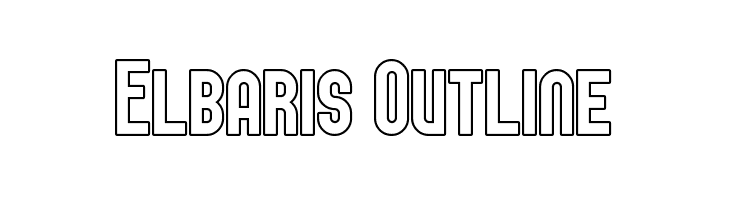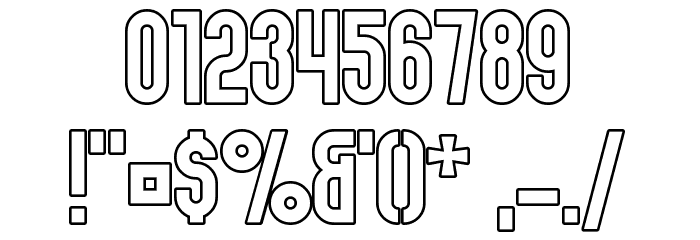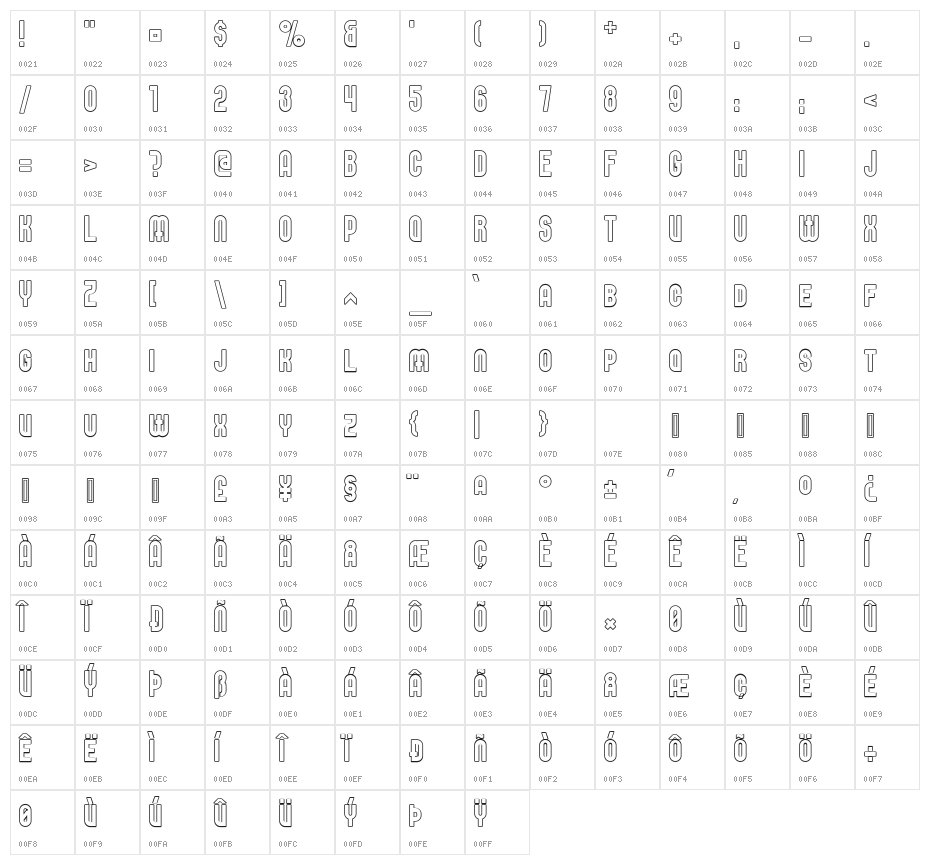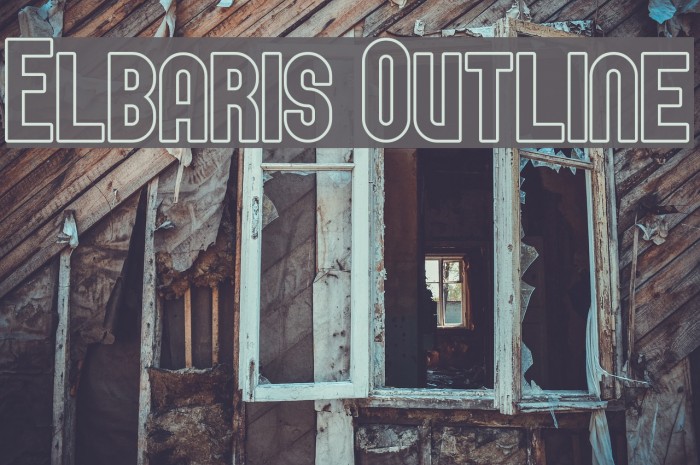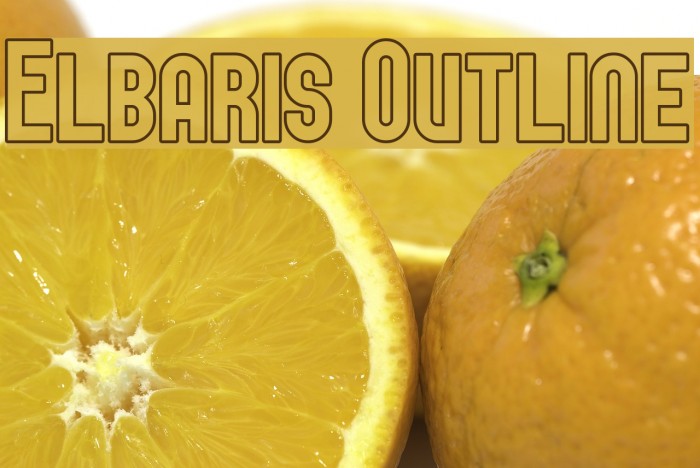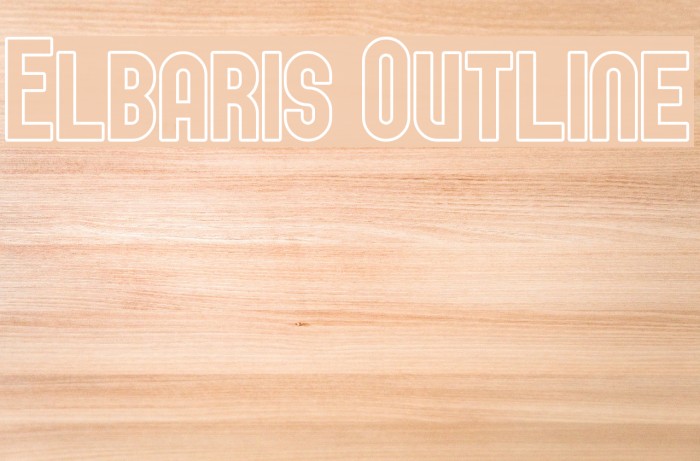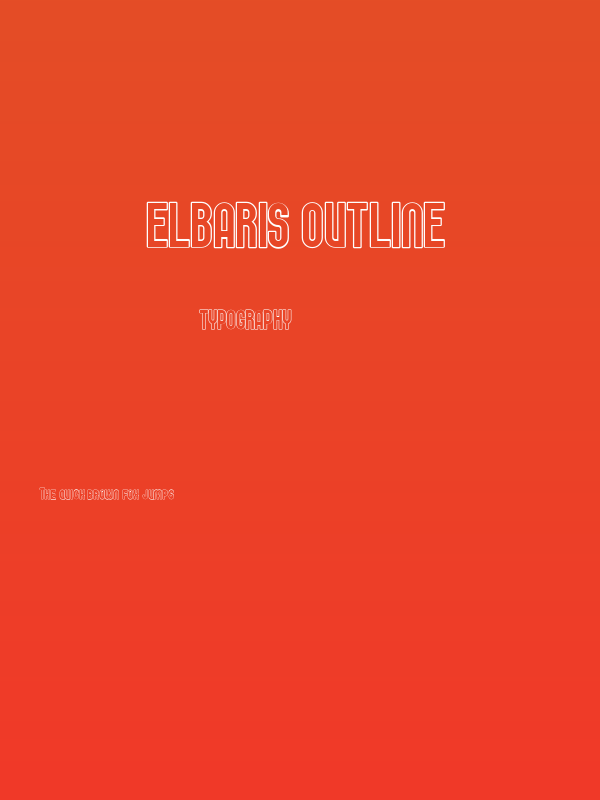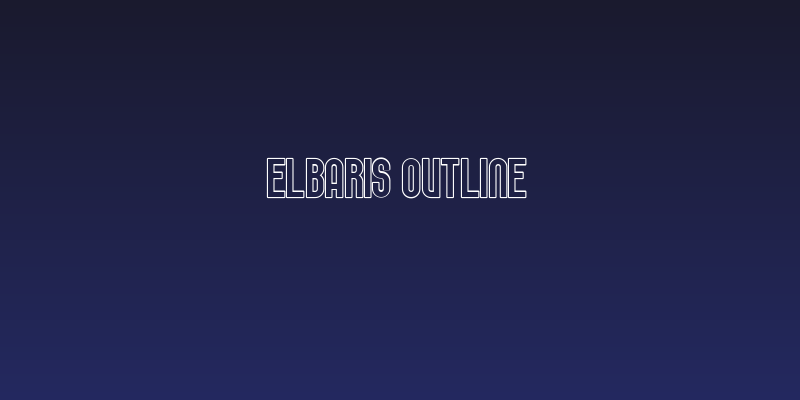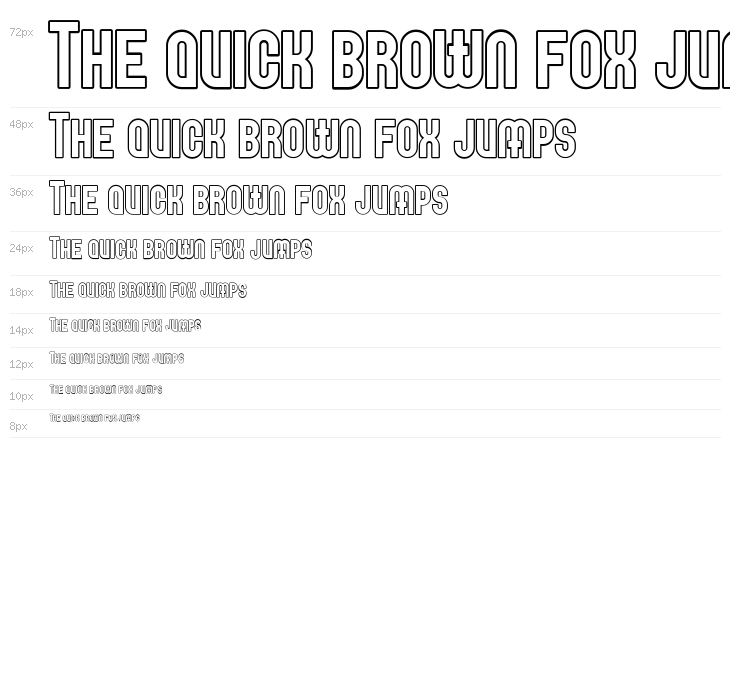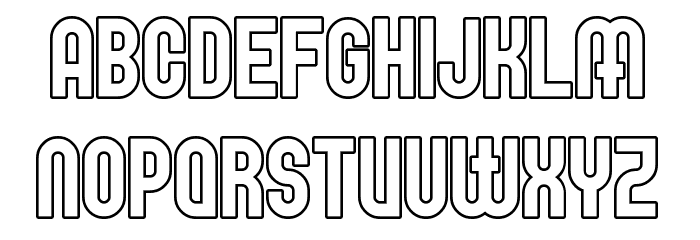
Elbaris Outline Font
Elbaris Outline Description
This font features a bold, geometric outline style that emphasizes its modern and futuristic aesthetic. The characters are constructed with clean, straight lines and rounded edges, creating a sense of uniformity and balance. The uppercase and lowercase letters maintain a consistent height, contributing to a cohesive look. The numerals and special characters follow the same design principles, ensuring versatility across different uses. The outlined nature of the font adds a unique dimension, making it stand out in various design contexts.